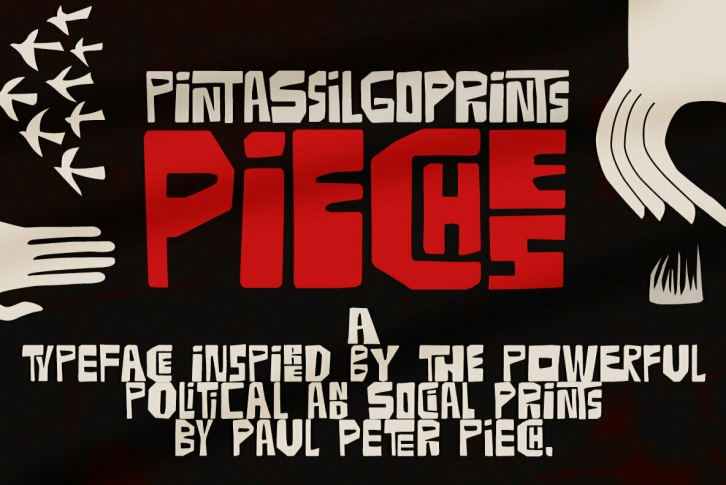
This typeface is inspired by the powerful political and social posters by Paul Peter Piech, a tireless artist and printer. Questioned about his endless energy and focus on work, he once said "I don't want to sit around and be silent".
Pieches is a linocut-looking font heavily loaded with interlocks, including vertical pairs of letters. There are alternates also, and not quite a few: four glyphs for each letter so countless expressive possibilities are open. Graphical elements are also included, for added wilderness.
This is a loud-speaking font for those who don't want to be silent. Let’s shout!